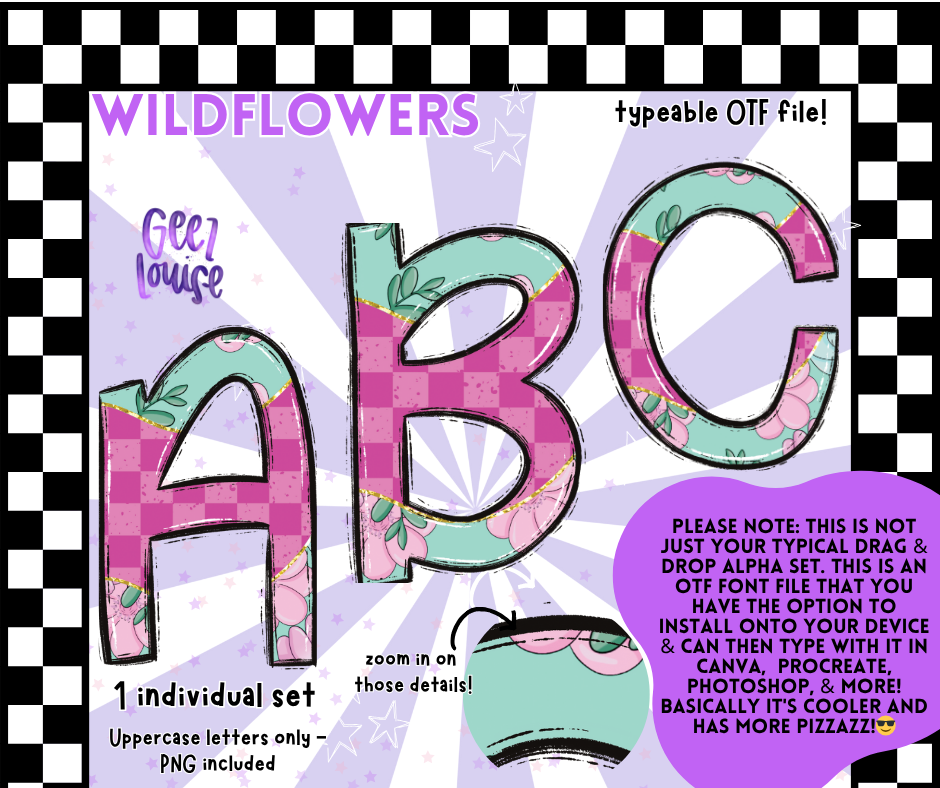
Wildflowers OTF Font + PNG Alpha Set
Bold blooms and cottagecore charm? Yes please. 🌸
Wildflowers is a vibrant alpha set featuring rustic red gingham and whimsical pastel florals — perfect for spring, summer, farmhouse, or boho-inspired designs.
🌺 Uppercase letters only
🌺 Packed with sweet floral accents and checkered sass
Perfect for garden girls, floral fonts fans, and anyone who loves a little rustic flair in their graphics.